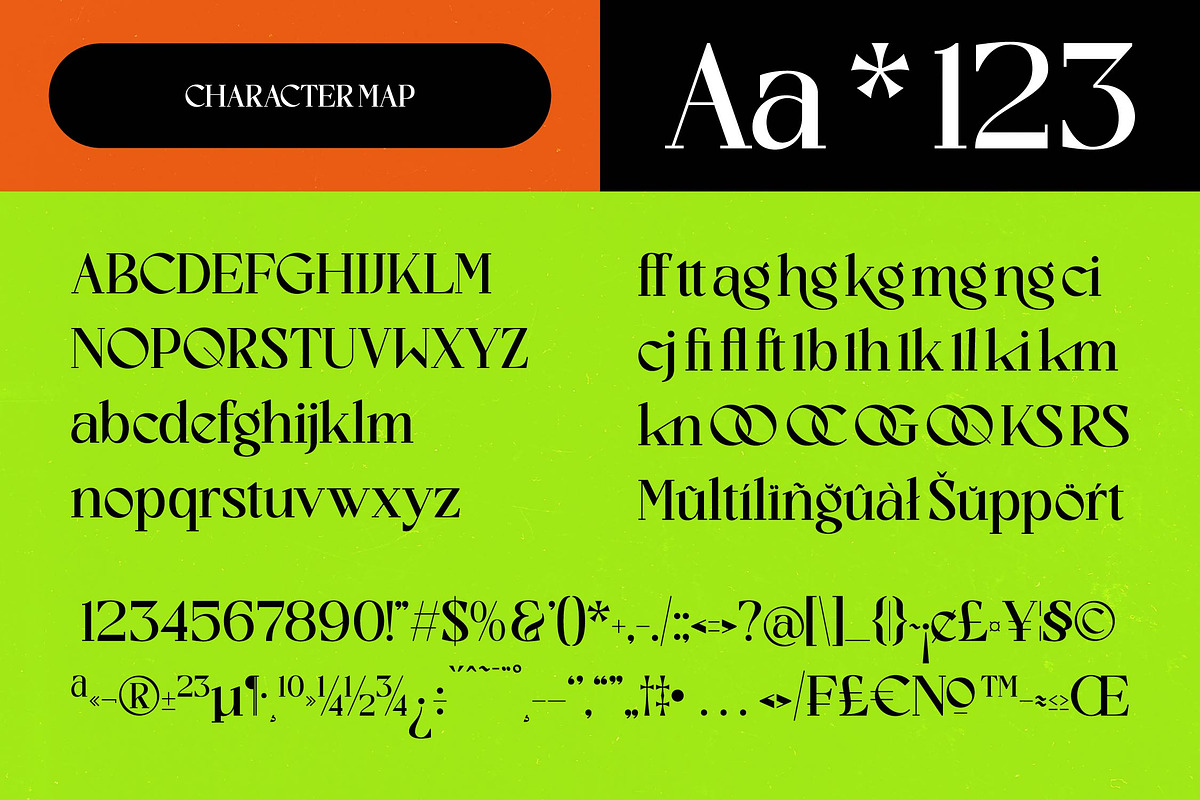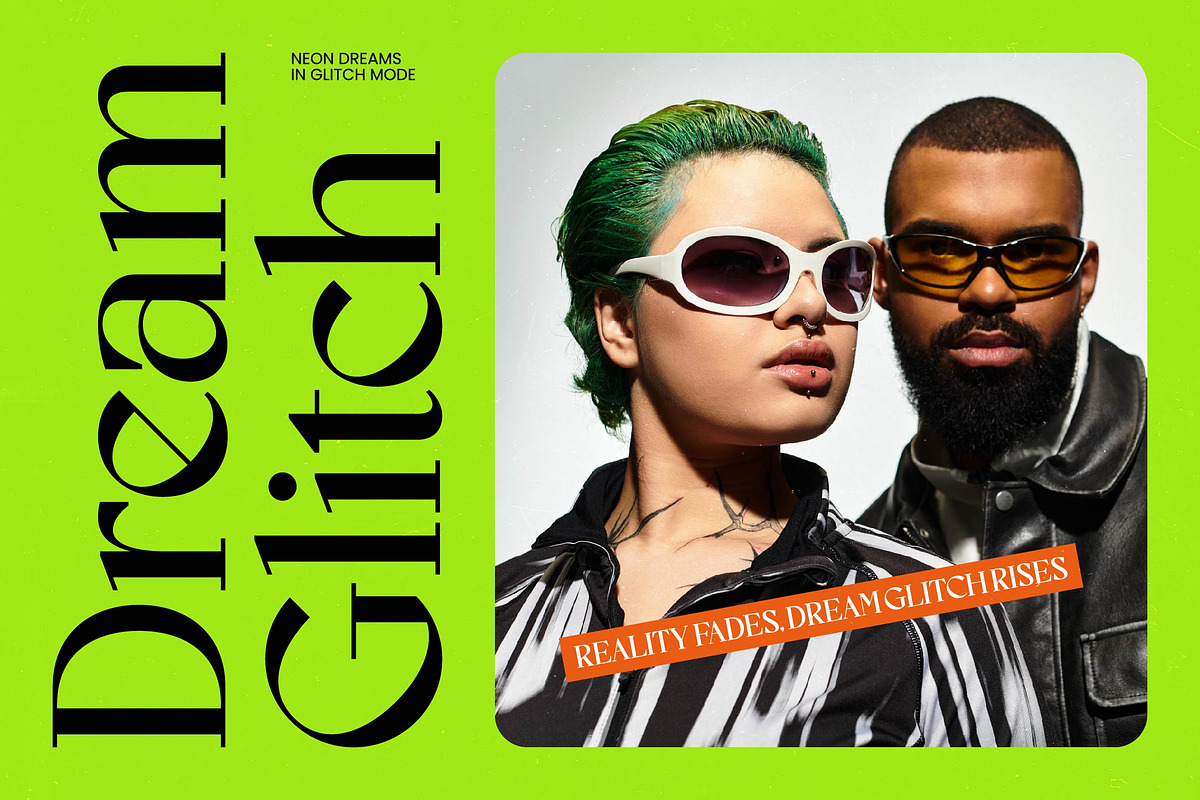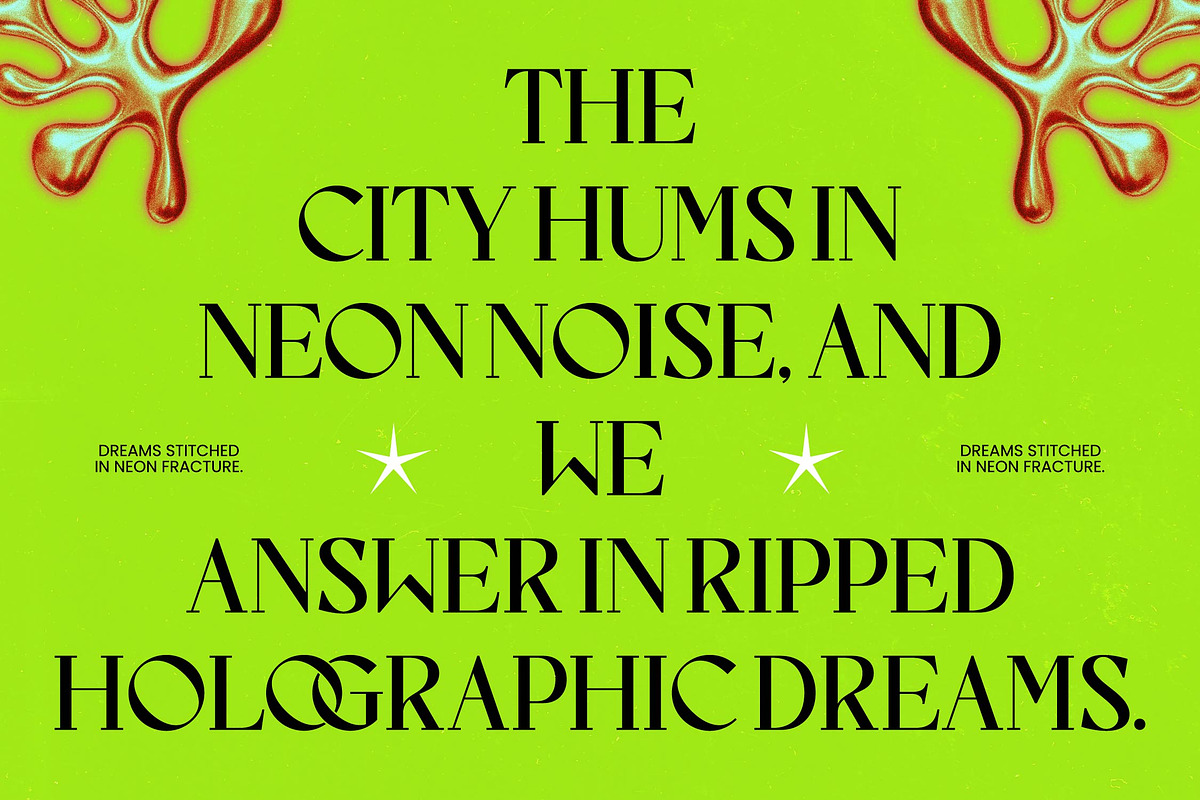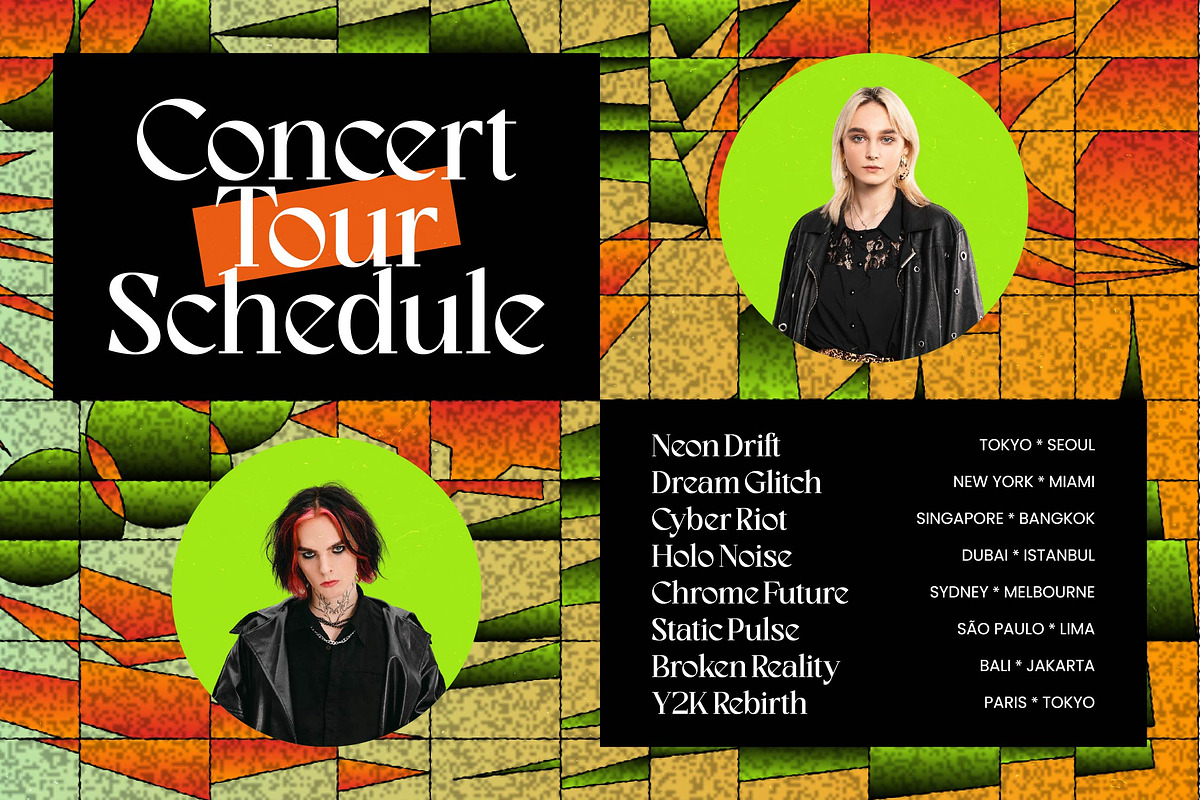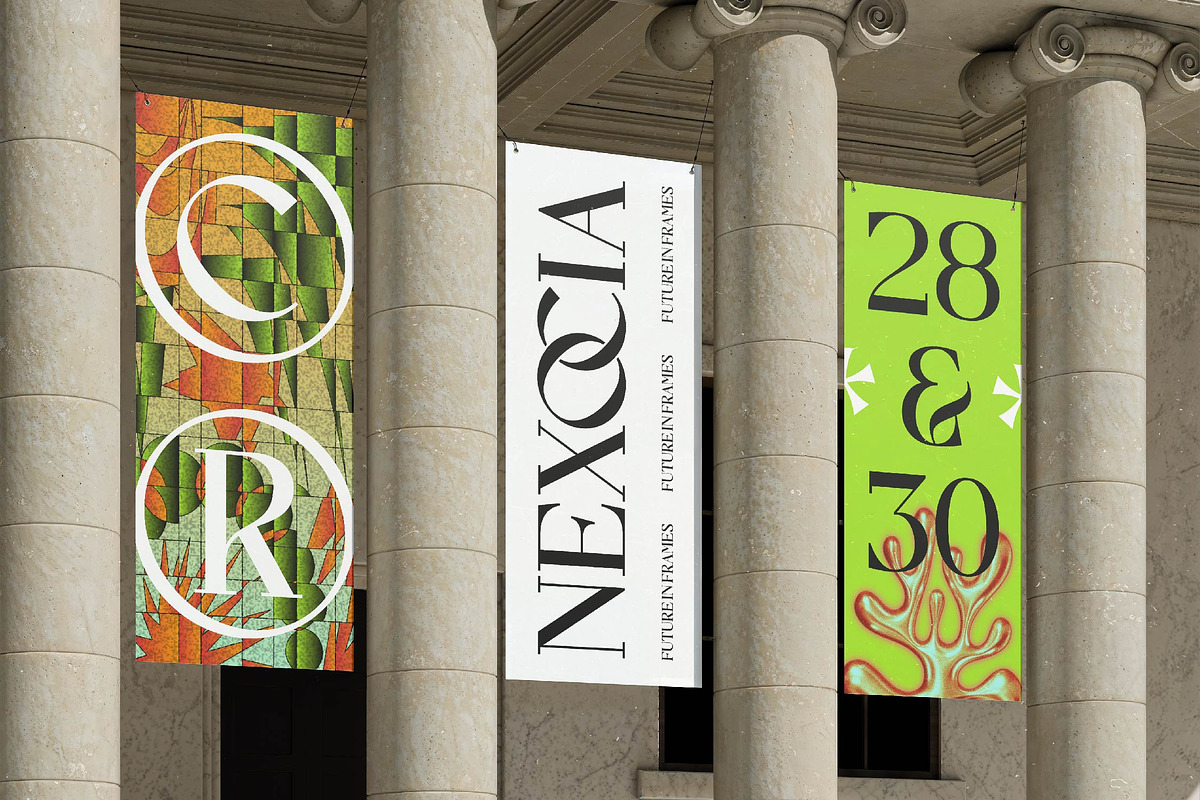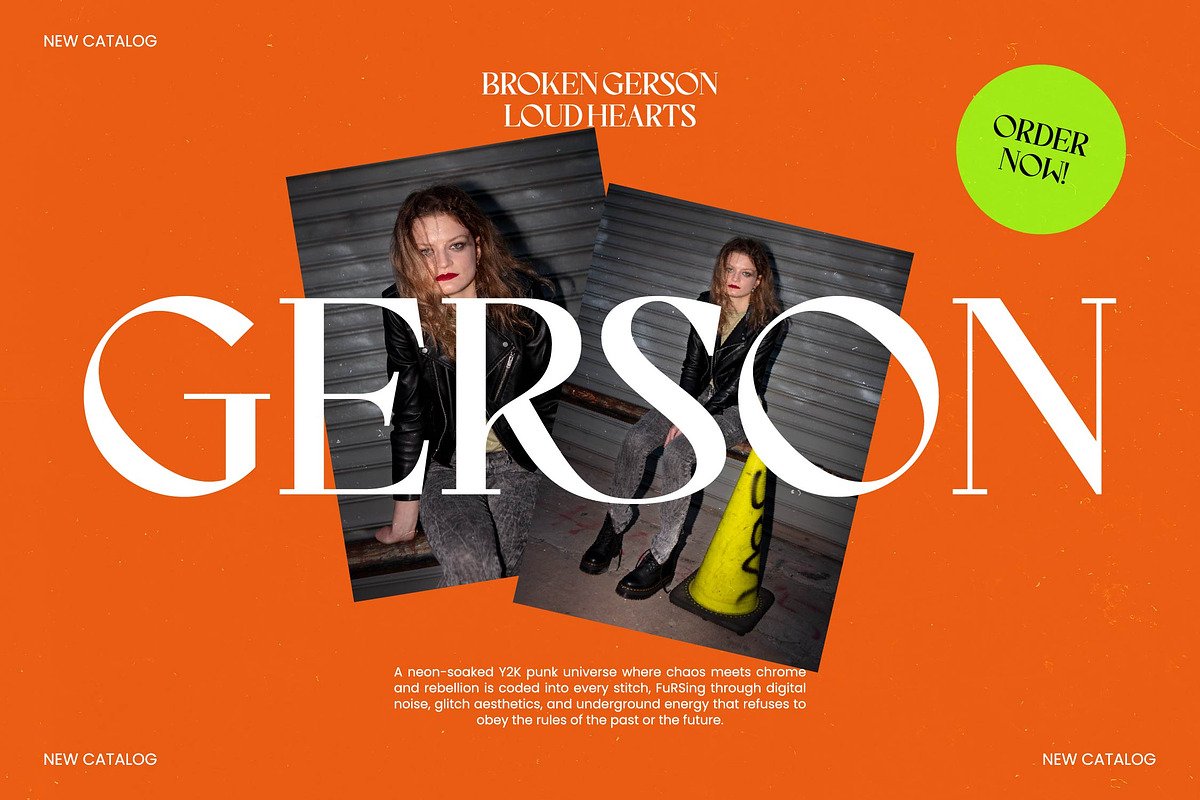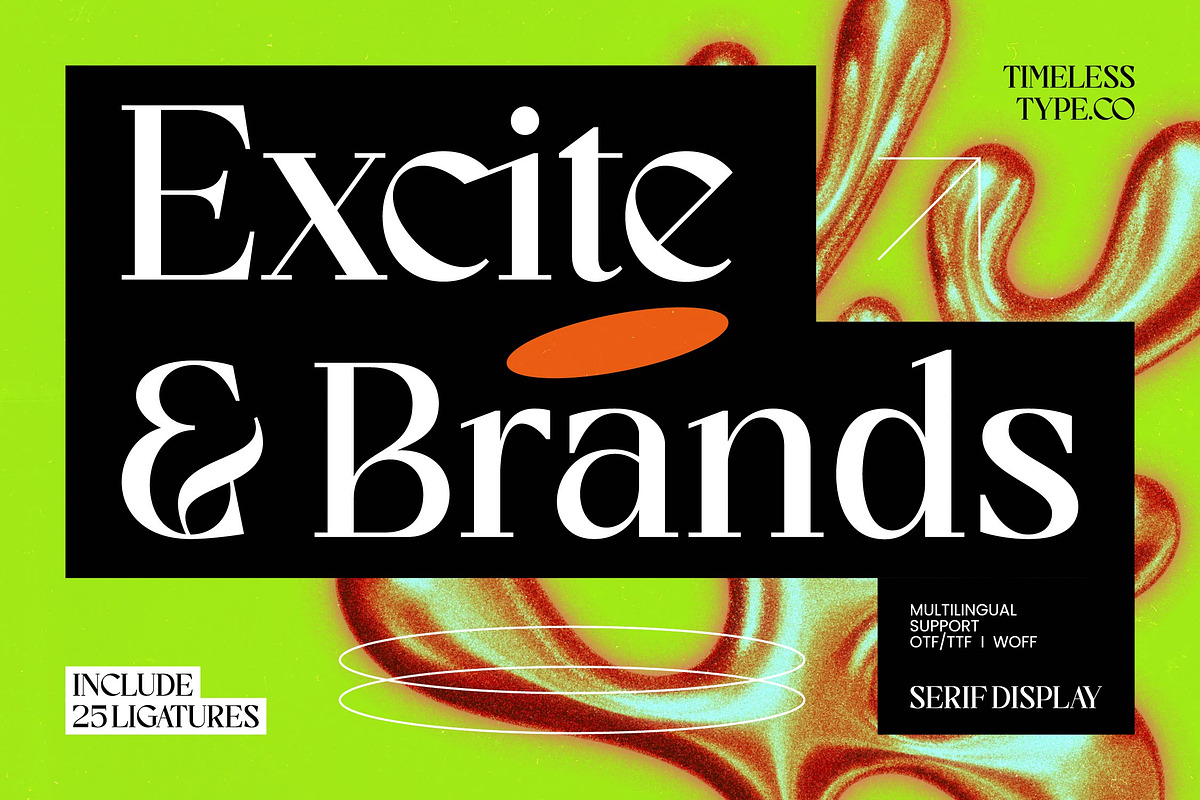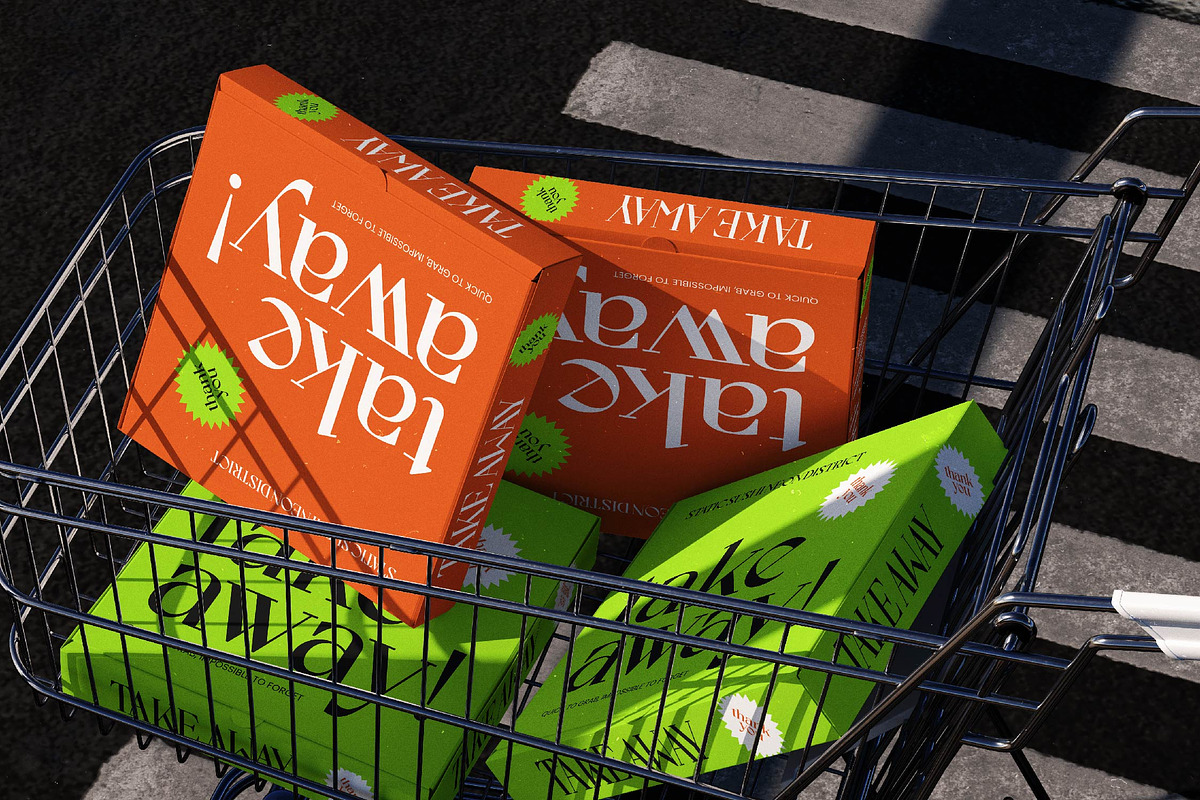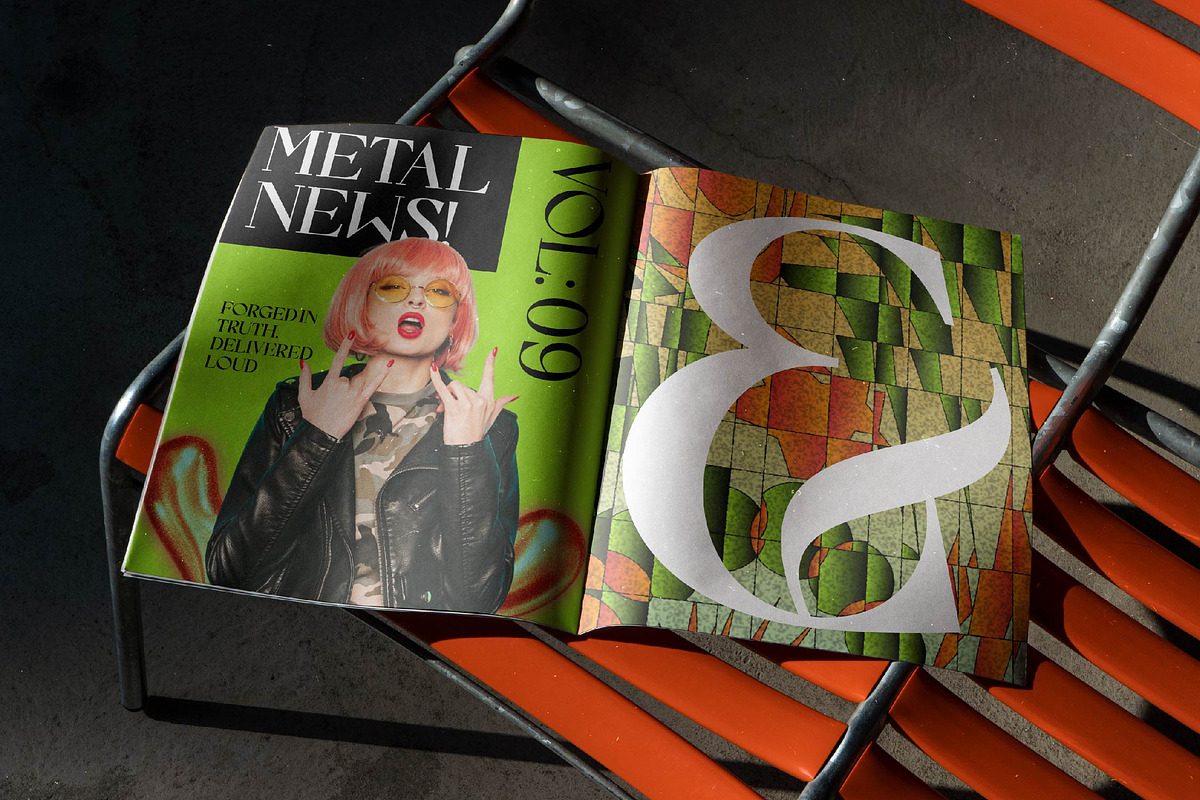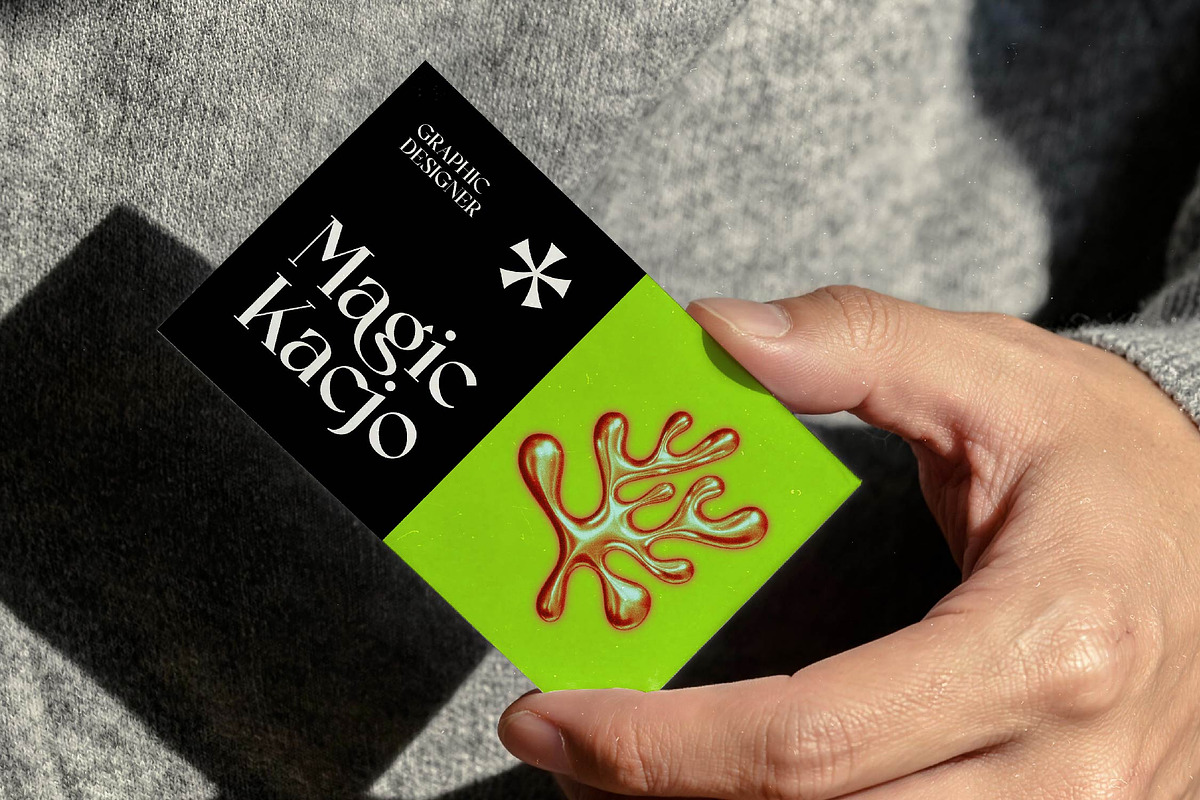
Excite Brands Modern Editorial Serif
Excite Brands - Modern Editorial Serif , Elevate your visual identity with a typeface that embodies sophisticated luxury and modern refinement. Excite Brands - Modern Editorial Serif is a masterclass in high-contrast typography, blending classic serif structures with a contemporary, high-fashion aesthetic. Its sharp terminals and elegant silhouettes provide a distinctive look that commands attention on the page or screen, ensuring your brand stands out with an undeniable sense of prestige and authority.
Expand your creative horizons across borders with a font built for the modern global economy. With its extensive multilingual support, Excite Brands - Modern Editorial Serif adapts seamlessly across global markets, making it incredibly versatile for international projects. Whether you are launching a campaign in Europe or scaling a brand globally, this versatile typeface ensures consistent brand storytelling and professional presentation in numerous languages without compromising on style.
Precision meets artistry in every character of this meticulously crafted serif display font. Excite Brands - Modern Editorial Serif includes 25 unique ligatures that allow designers to create custom-feel typographic compositions with ease. These advanced OpenType features transform standard text into bespoke editorial designs, offering a level of typographic detail that is essential for premium visual communication and high-impact headlines.
Unlock a world of creative possibilities with a typeface designed for high-end branding and visual storytelling. Excite Brands - Modern Editorial Serif is the ideal application for luxury branding, premium packaging, high-fashion editorial layouts, and sophisticated social media content. It is perfect for designers looking to inject a sense of timeless elegance into logos, magazine covers, and exclusive digital experiences where quality and visual impact are paramount.